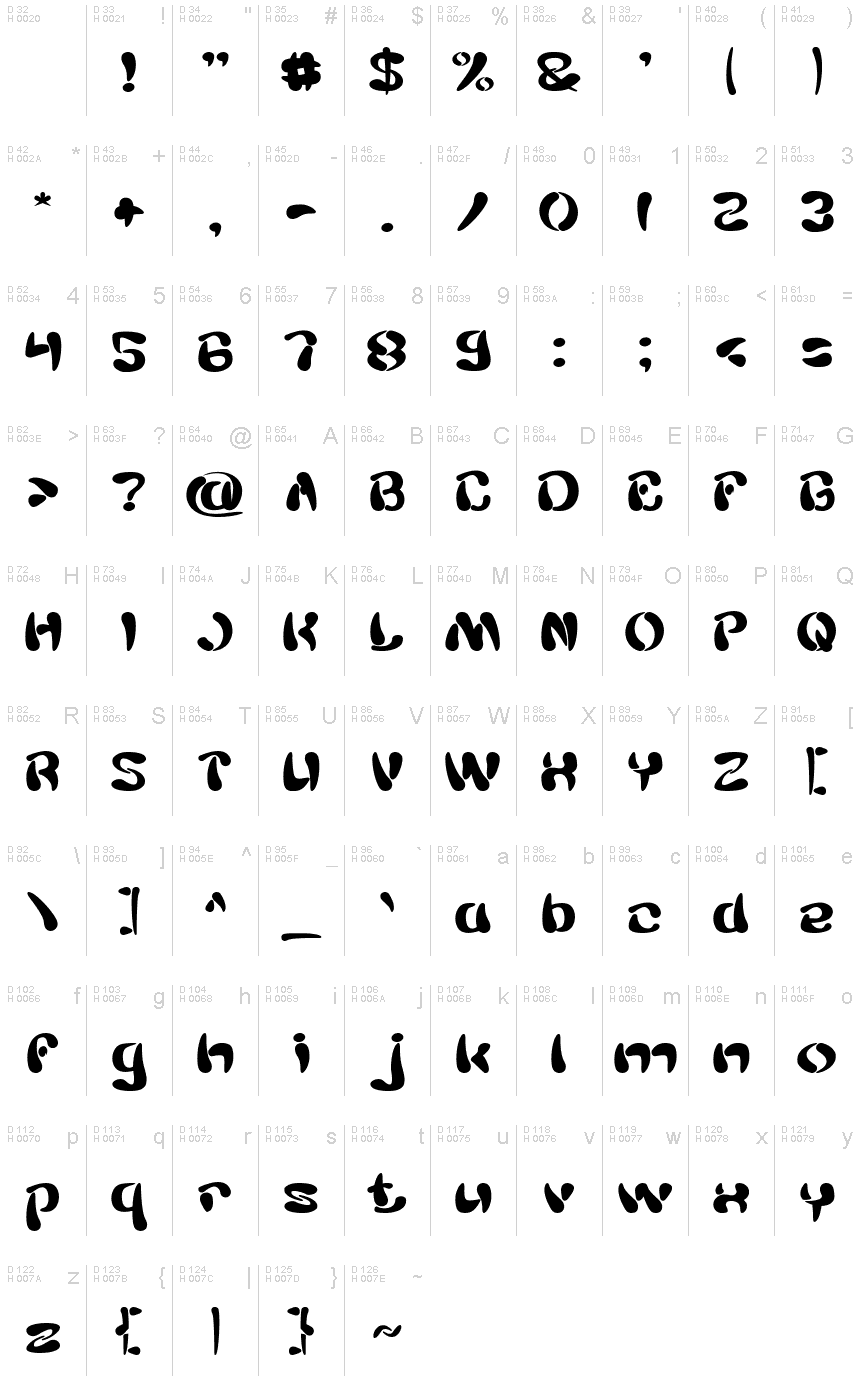
Splashing by Weknow is a free decorative display font with broad, liquid-looking letters and a distinctly psychedelic silhouette. Thick rounded masses pinch into narrow joins, producing lively changes in width across the alphabet. Some forms seem almost poured rather than drawn.
Psychedelic music graphics are its clearest territory, especially concert posters, album artwork, and festival merchandise that benefit from lettering with a melting edge. On drink packaging or event branding, the letter shapes can become part of a splash-shaped emblem or illustrated label rather than serving as neutral type.
Splashing is a free display font created by Weknow.